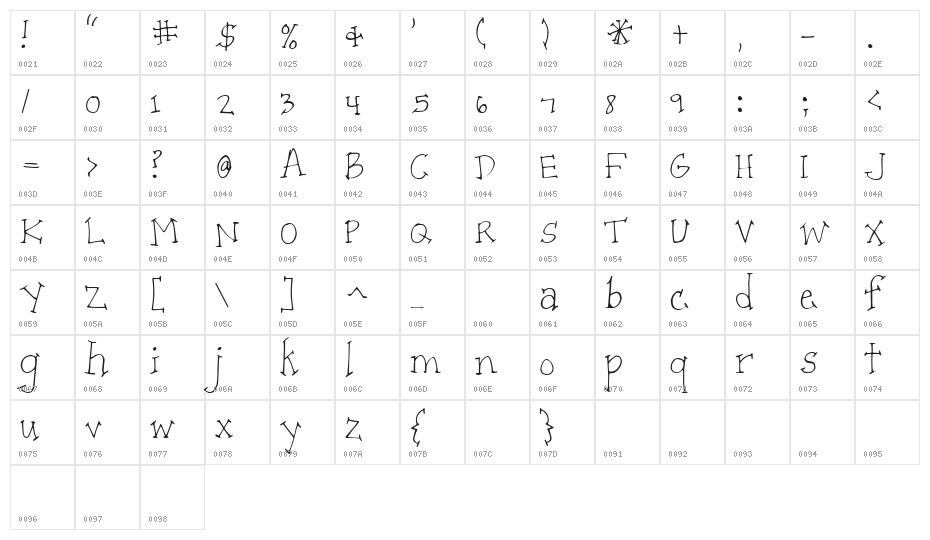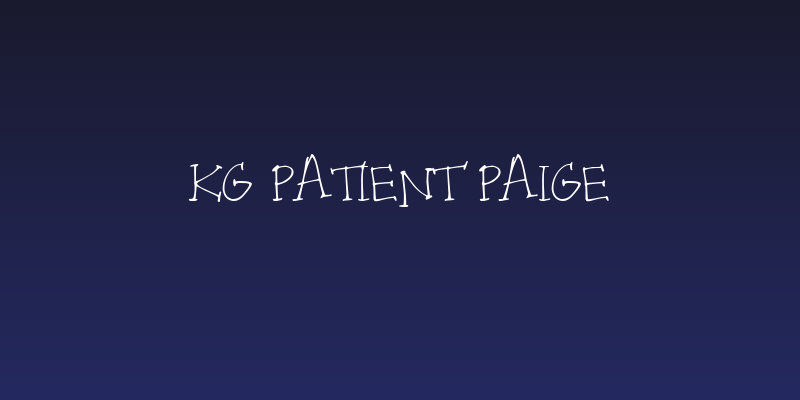
KG Patient Paige Font
KG Patient Paige Description
This font features a playful and whimsical handwritten style, characterized by its irregular strokes and slightly tilted letters. The uppercase and lowercase letters maintain a consistent flow, with a casual and friendly appearance. The numerals and special characters follow the same hand-drawn aesthetic, adding to the font's charm. The overall design is informal, making it suitable for projects that require a personal touch. The strokes vary in thickness, giving the font a dynamic and lively feel.
KG-PATIENT-PAIGE UPPERCASE
KG-PATIENT-PAIGE LOWERCASE
KG-PATIENT-PAIGE OTHER CHARS
| Overall Style | Casual and playful |
| Proposed Projects | Ideal for children's books, greeting cards, personal blogs, and creative invitations. |